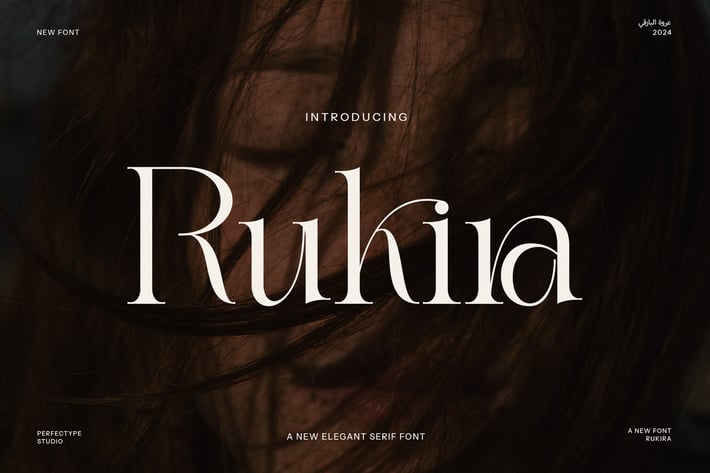
Rukira Elegant Serif Font
Rukira Elegant Serif Font is a refined and contemporary serif typeface that combines sophistication with versatility. Crafted with precision, Rukira showcases beautiful, unique ligatures and alternate characters that make it a standout choice for designers seeking a font with both elegance and personality. Its graceful serifs and clean lines offer a perfect balance of traditional charm and modern style, making it an ideal option for a wide range of creative projects.
With its luxurious yet approachable appearance, Rukira is perfect for branding, logo design, and high-end marketing materials. Whether you're working on a boutique identity, a premium product line, or a stylish website, this font brings a sense of prestige and class to every design. Its beautiful alternates and ligatures allow for the creation of personalized, distinctive typographic compositions that capture attention and leave a lasting impression.
Rukira’s versatility extends to both digital and print applications, making it an excellent choice for magazines, advertisements, packaging, and layouts. It’s especially suited for industries where elegance and professionalism are key—such as fashion, luxury goods, and fine dining. The font’s elegant form makes it equally effective for both large headlines and body text, ensuring readability while maintaining a premium aesthetic.
For any project that demands a touch of class and modern flair, Rukira Elegant Serif Font is the perfect typographic choice. Whether for a brand refresh or a new creative endeavor, it offers the perfect blend of timeless elegance and contemporary design.